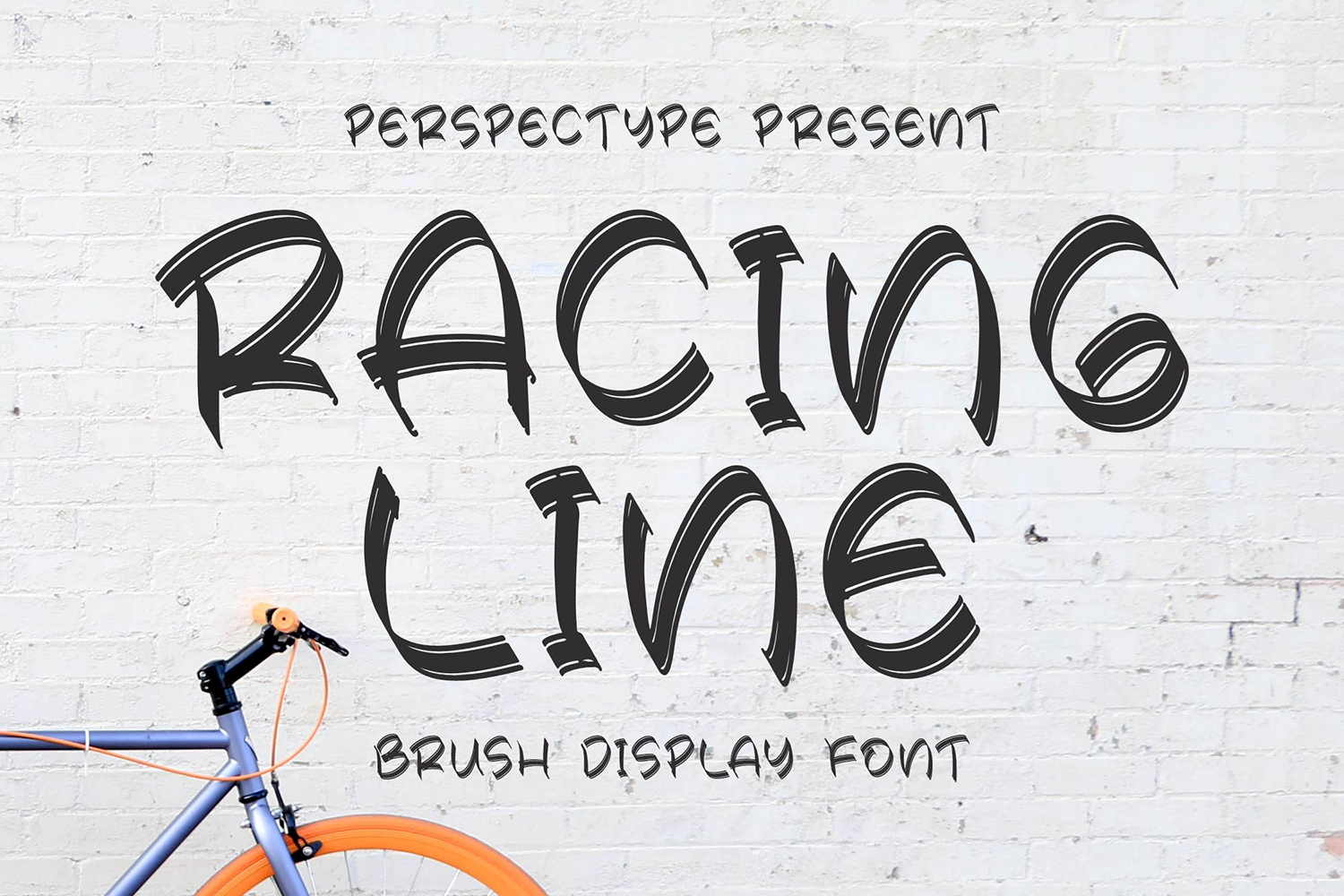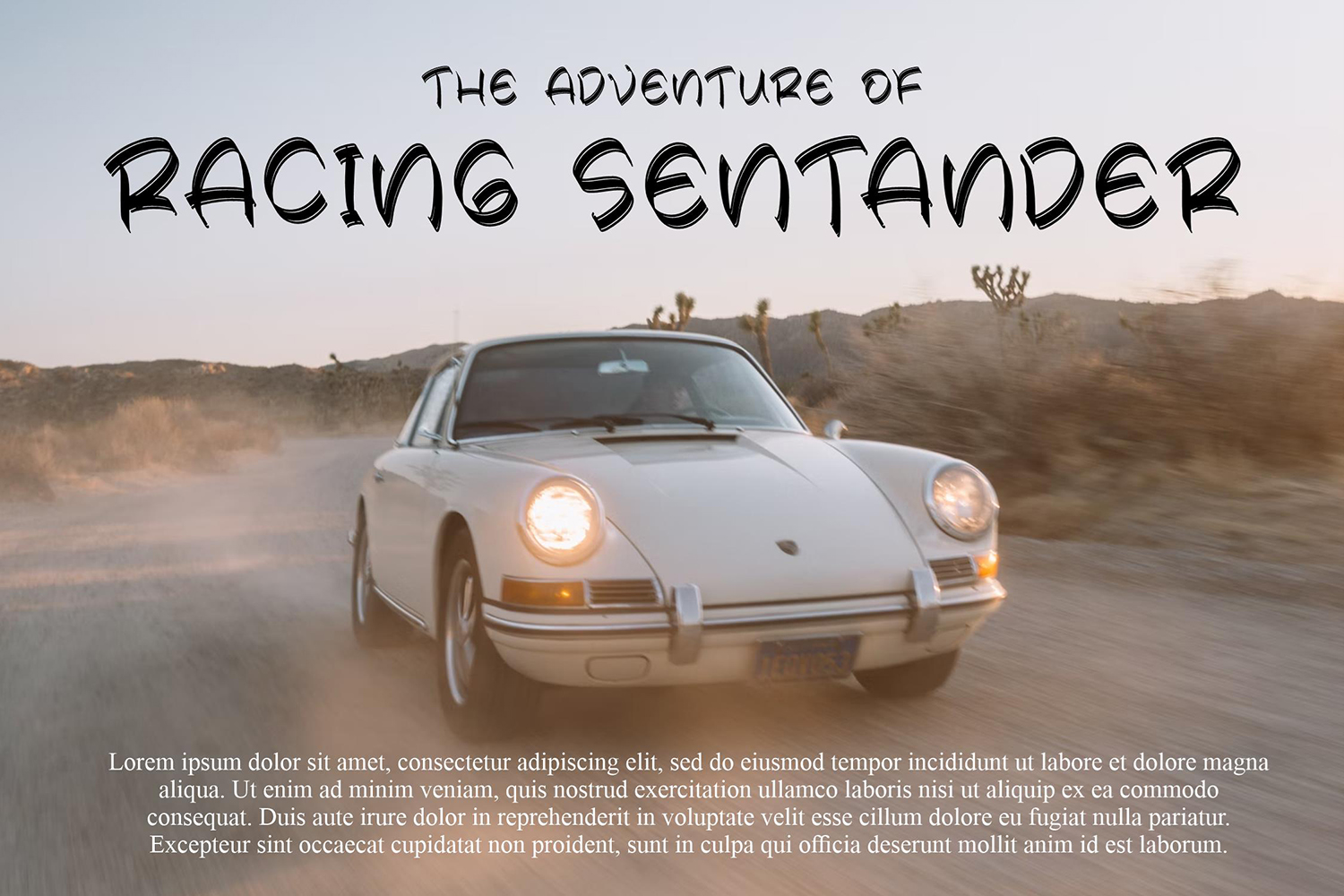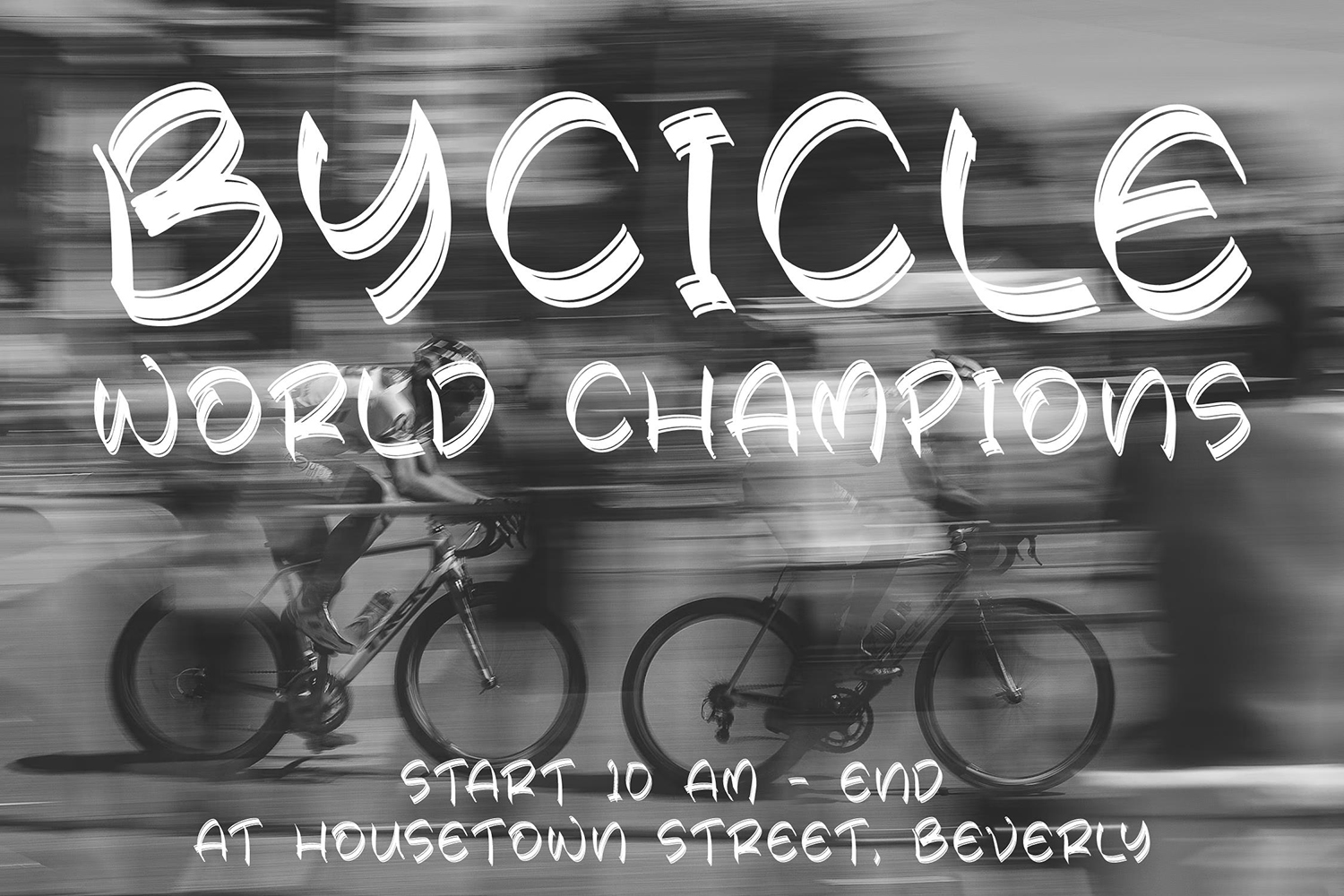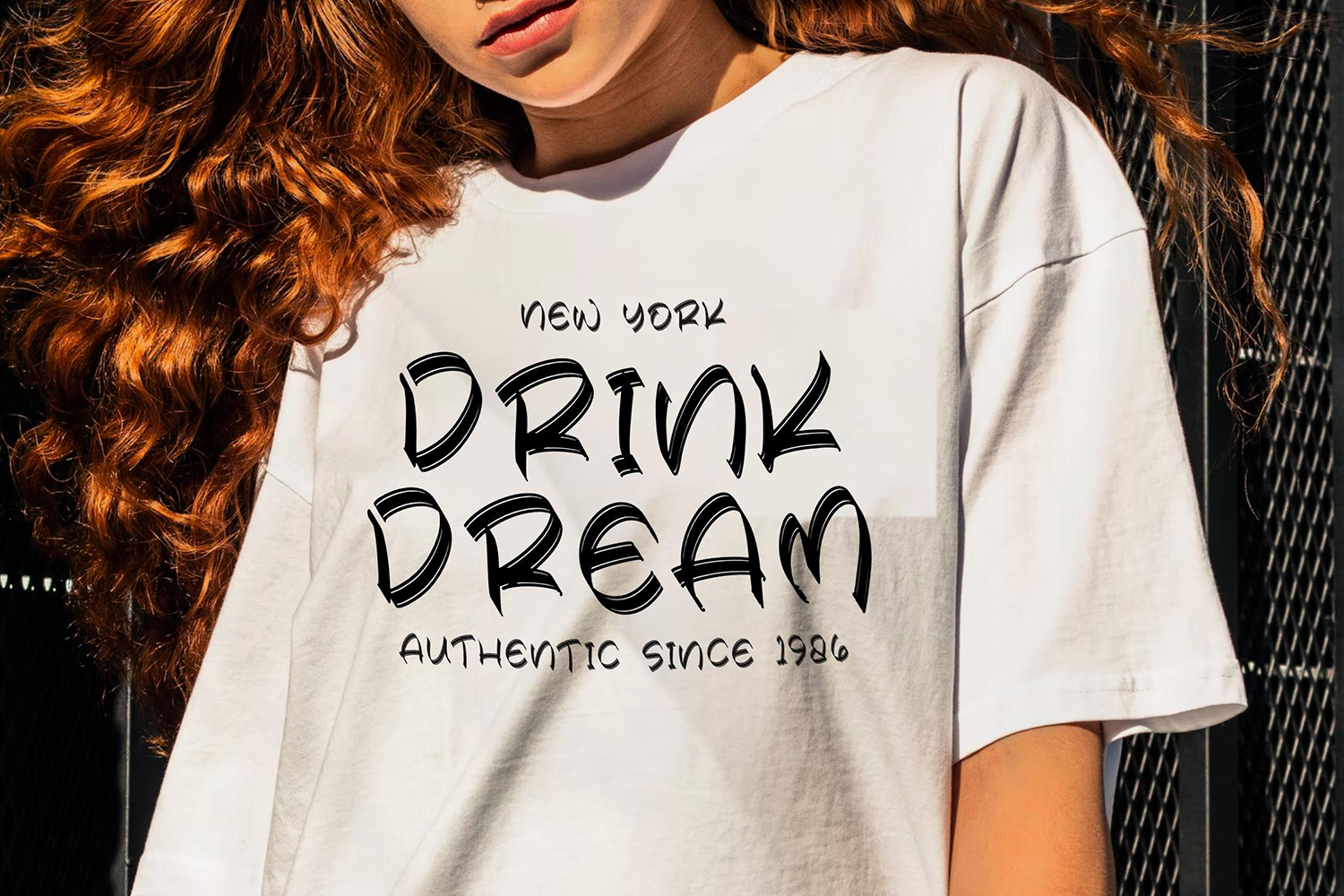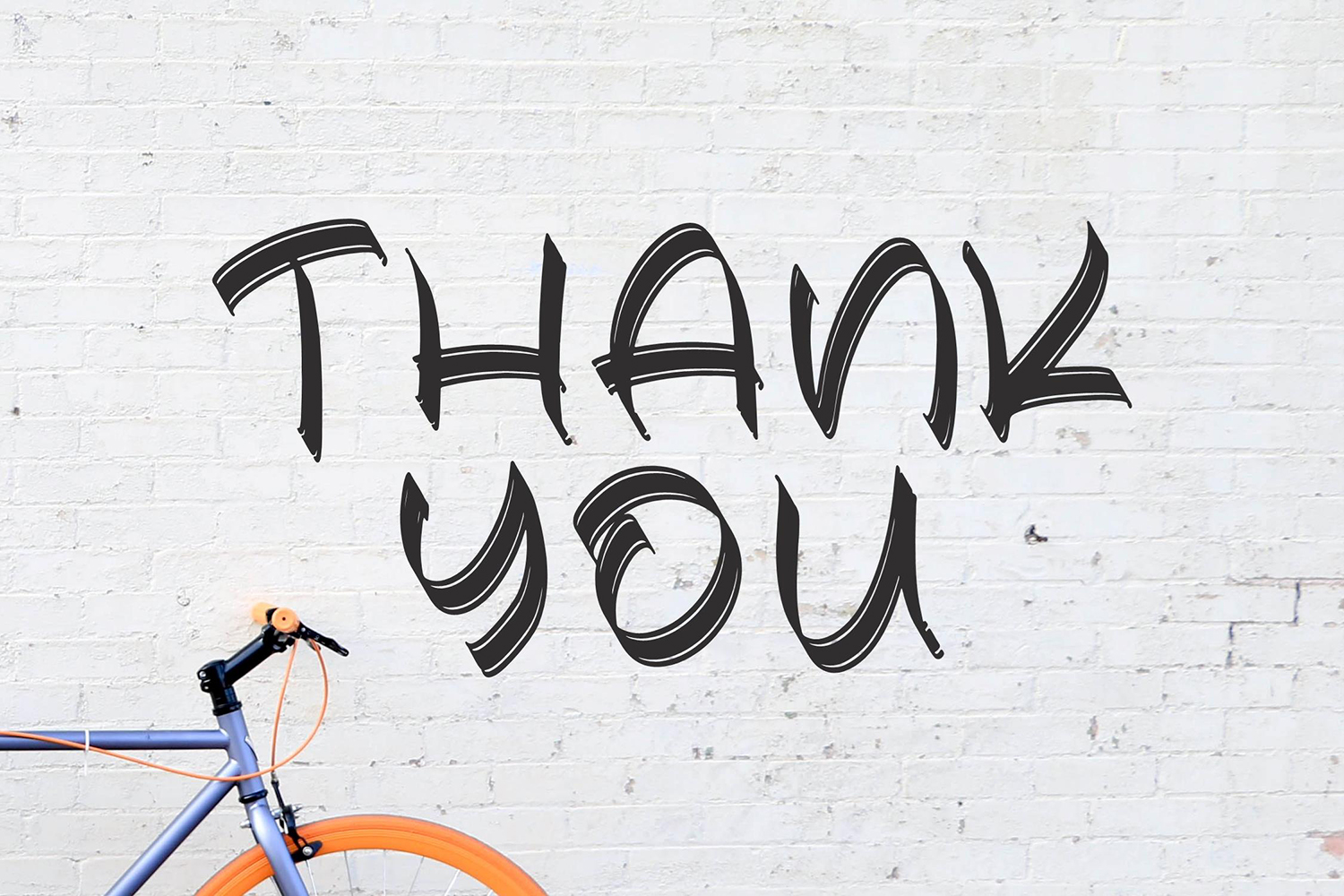
Racing Line Free Font
Racing Line Free Font is a cool and modern brush display font. Add it confidently to your project ideas and you will love the results. This free typeface was designed by a talented Perspectype Studio. If you like it don’t forget to check out the full version.